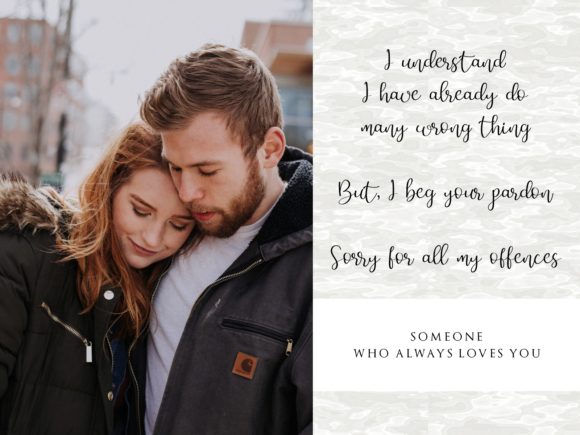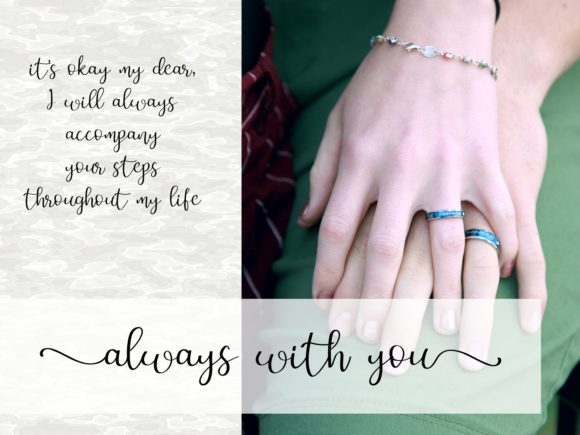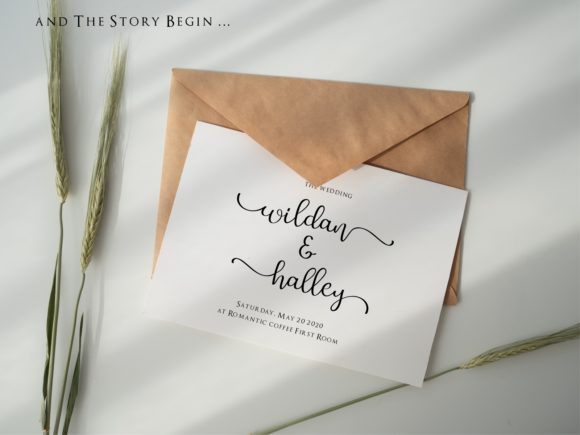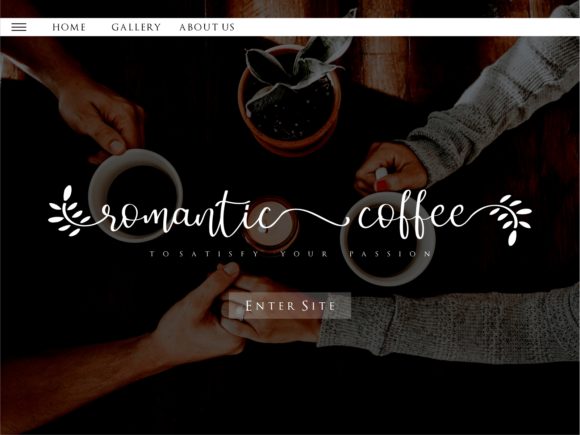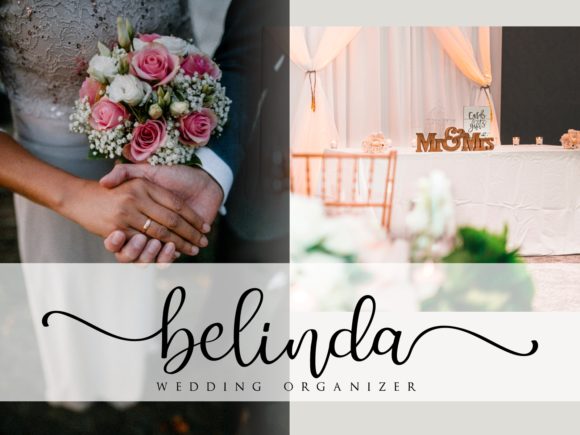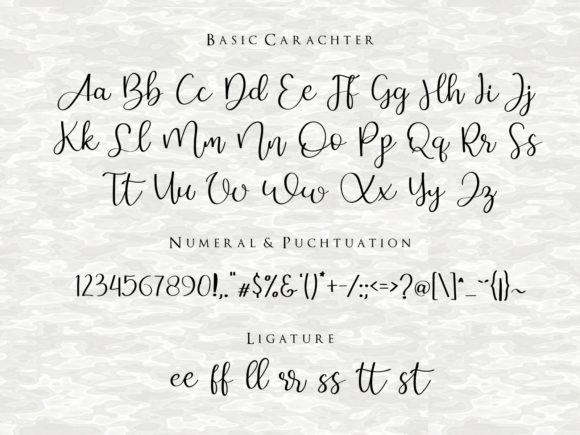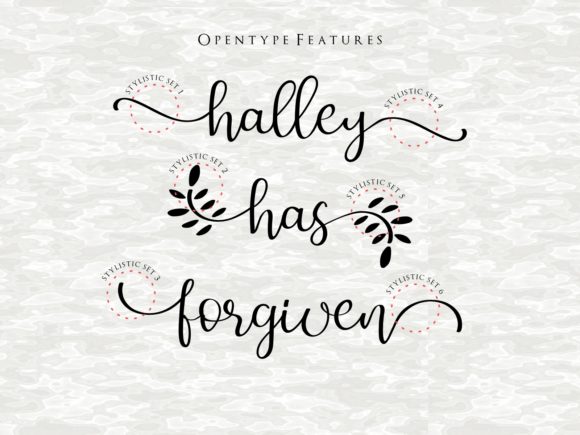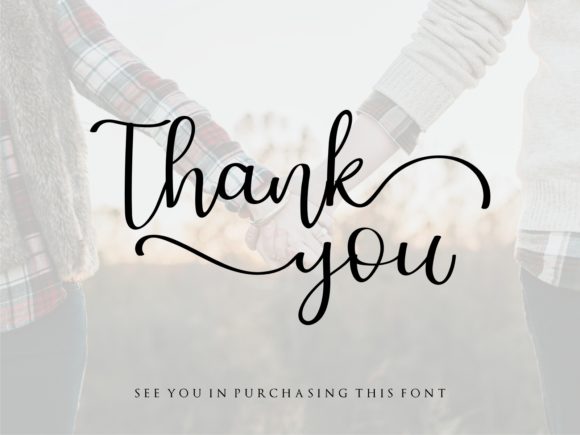
Just Sorry Font
About Just Sorry Font
Just Sorry is a beautiful calligraphic script font. It features a varying baseline, smooth lines, gorgeous glyphs and stunning alternates. Fall in love with its authentic feel and use it to create gorgeous wedding invitations, beautiful stationary art, eye-catching social media posts, and cute greeting cards. This font is PUA encoded which means you can access all of the glyphs and swashes with ease!